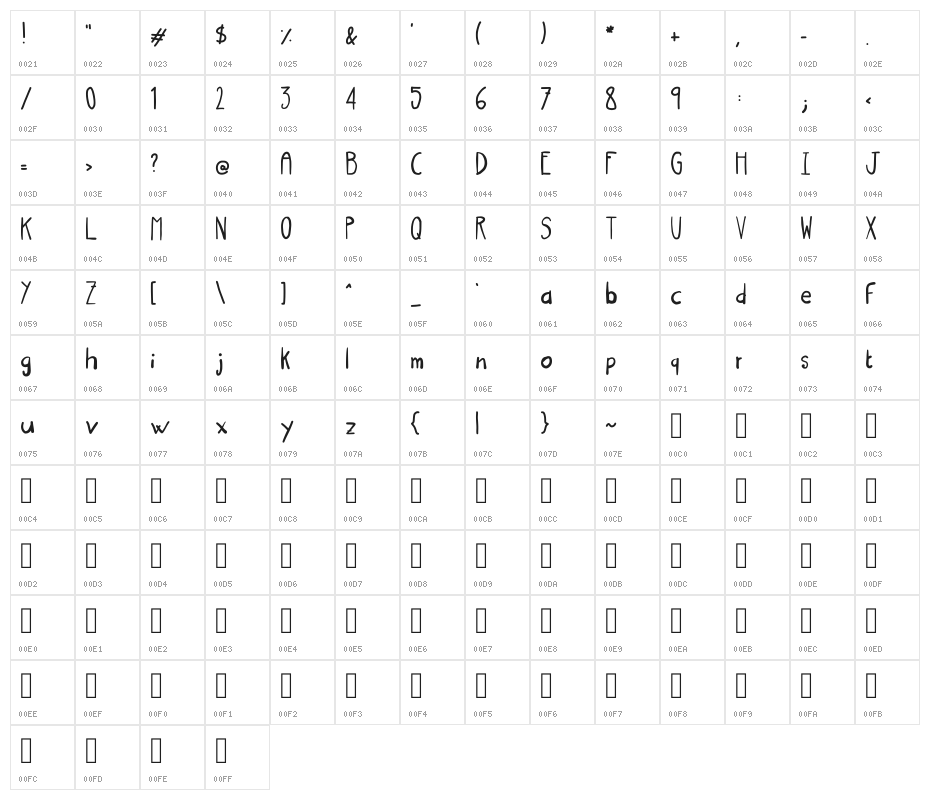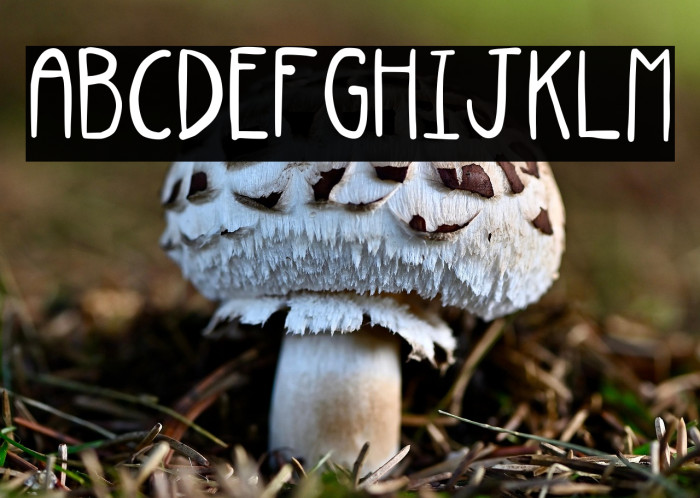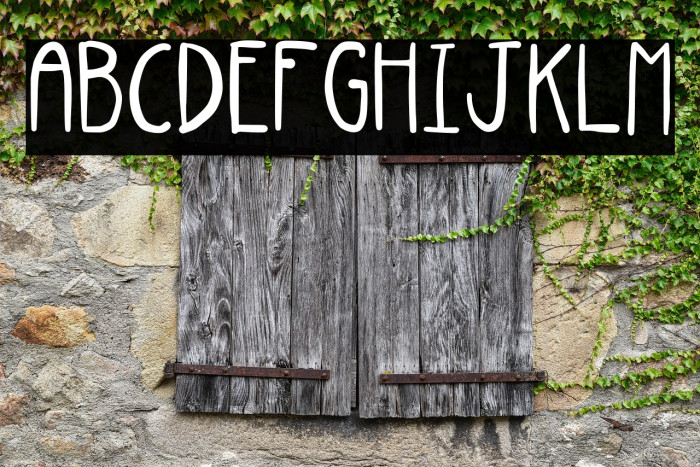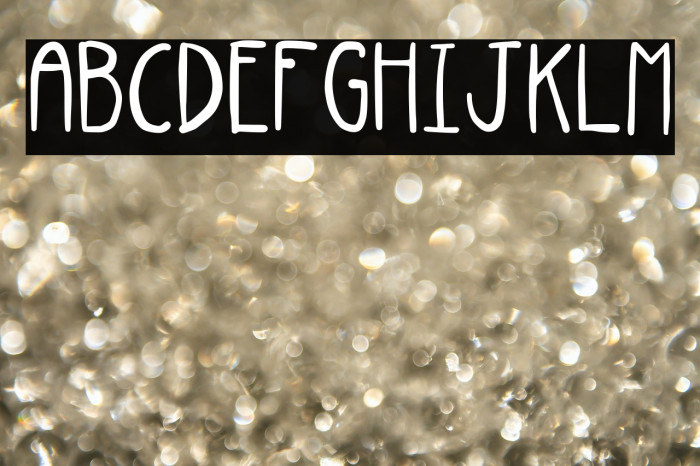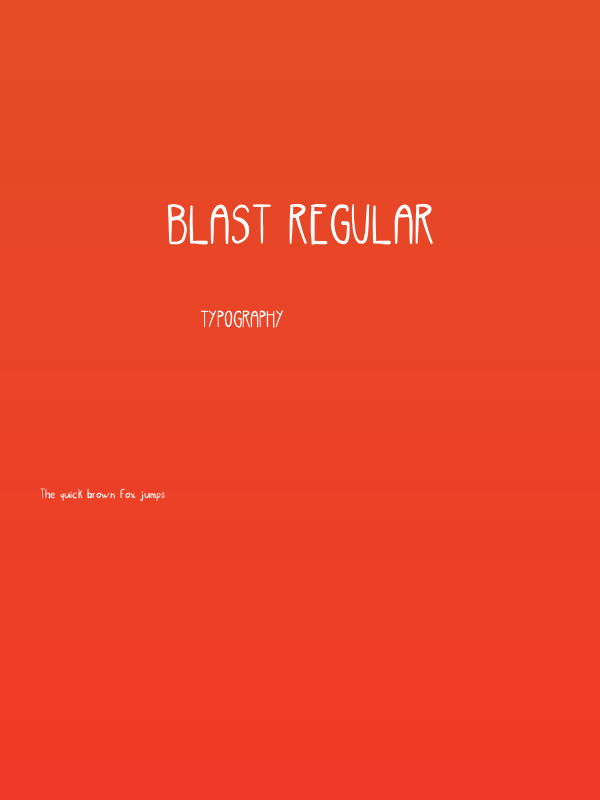
Blast Regular Font
Blast Regular Description
This font features a playful and informal style with a handwritten appearance. The characters are slightly irregular, giving it a casual and friendly look. The uppercase letters are tall and narrow, while the lowercase letters maintain a consistent height, enhancing readability. The numbers are clear and distinct, matching the overall whimsical aesthetic. Special characters are creatively designed, adding to the font's charm. This font is versatile, suitable for projects that require a personal touch or a fun, approachable vibe.